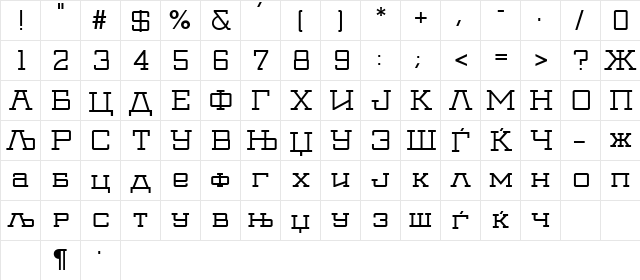
X_Goliat Normal
Design Context for X_Goliat Typeface
X_Goliat offers clean, dependable letterforms without strong stylistic allegiance, making it a practical choice for designers who need flexibility.
Pro Tip: Pair X_Goliat with a font of contrasting weight or personality to build a more expressive typographic hierarchy.